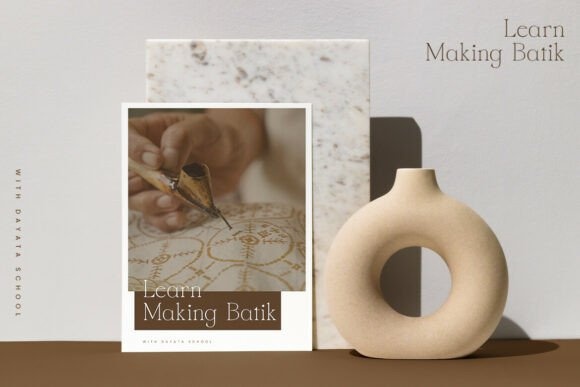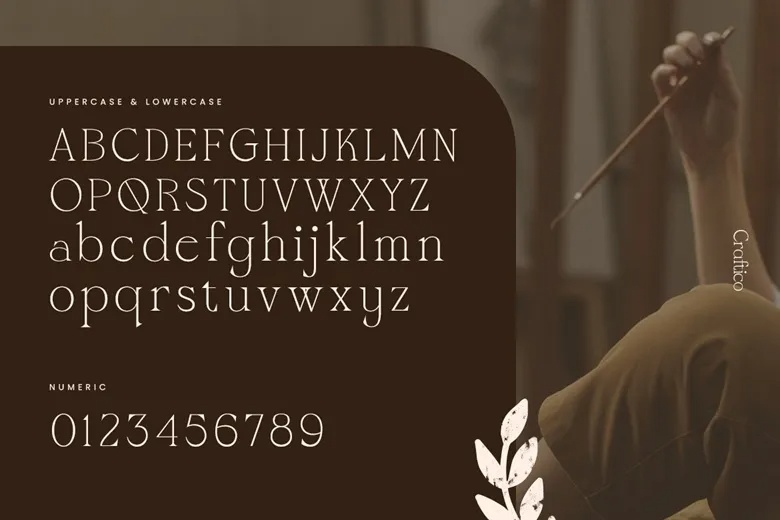
Craftico is a fine, light serif from TypeFactory. The hairlines are very thin, the serifs are small and pointed, and a few letters bend in unusual ways: the f leans forward, the g has a looping tail, and the Q drops a long, curving stroke. The specimens set it over woodworking and batik photos, which suits the name.
Best uses for Craftico
- Branding for craft studios and workshops
- Ceramics and home goods labels
- Wedding invitations
- Course and workshop flyers
- Gallery and exhibition posters
Craftico is light, so pair it with a slightly sturdier face. Jost works for small details, close to the spaced caps in the specimen. Lato is readable for longer text. For a matching serif in paragraphs, try EB Garamond.
Craftico Serif Font